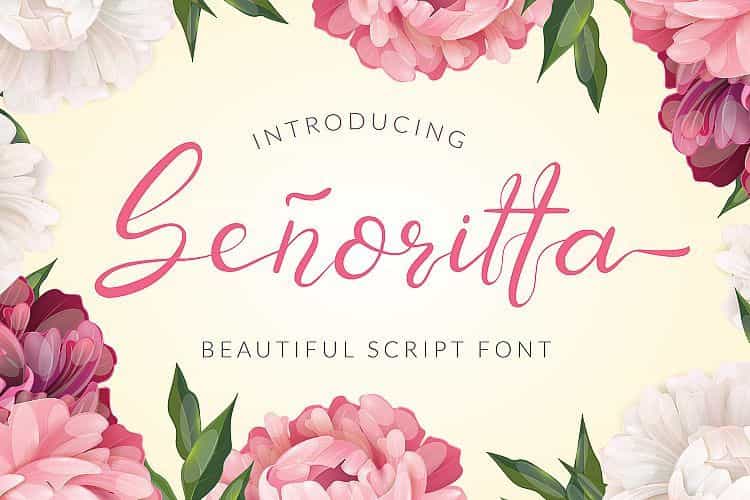
Senoritta Script Font
Senoritta Script Font– is stylish and fashionable due to its handwriting style, which looks like a signature. This font is intentionally made with unique alternates.